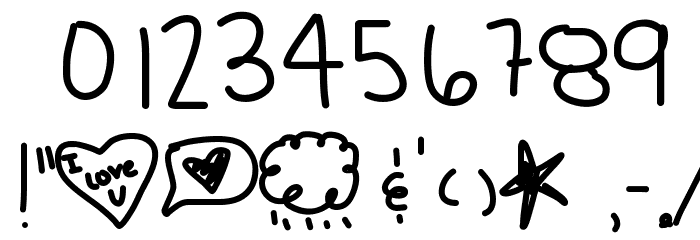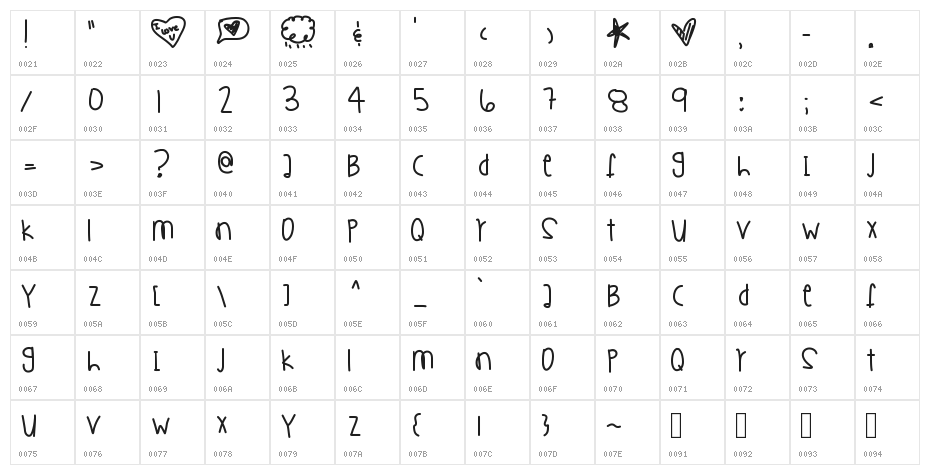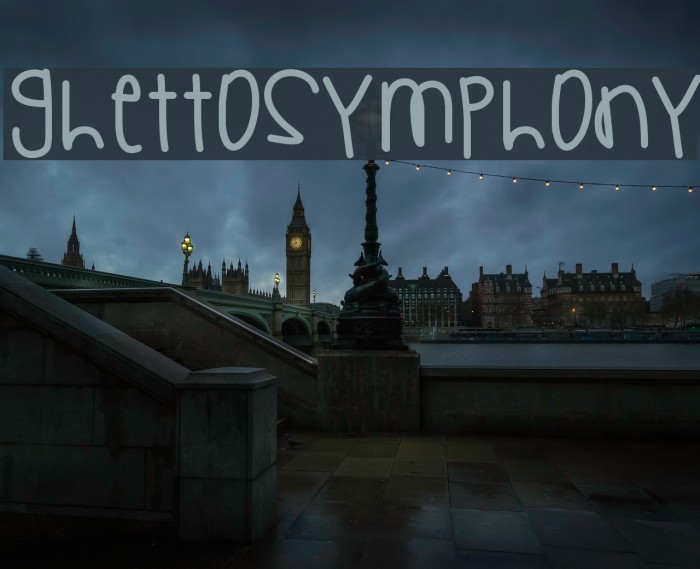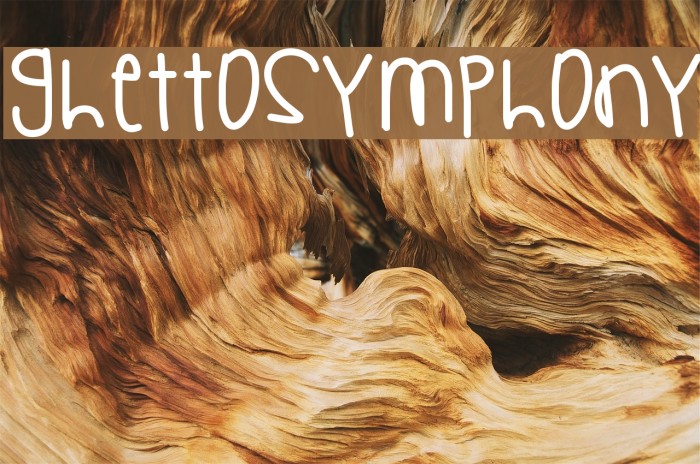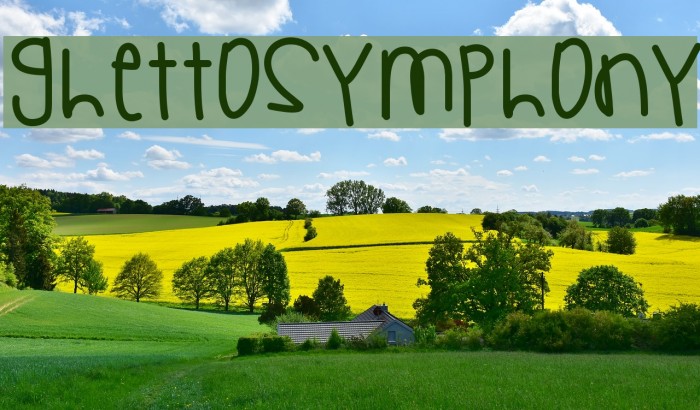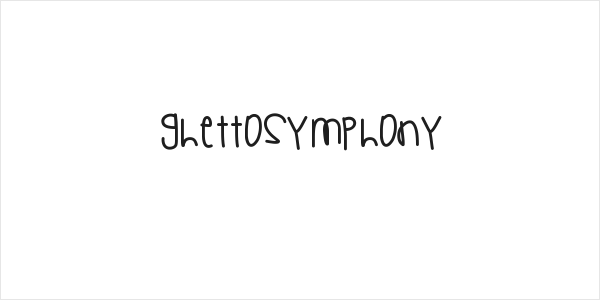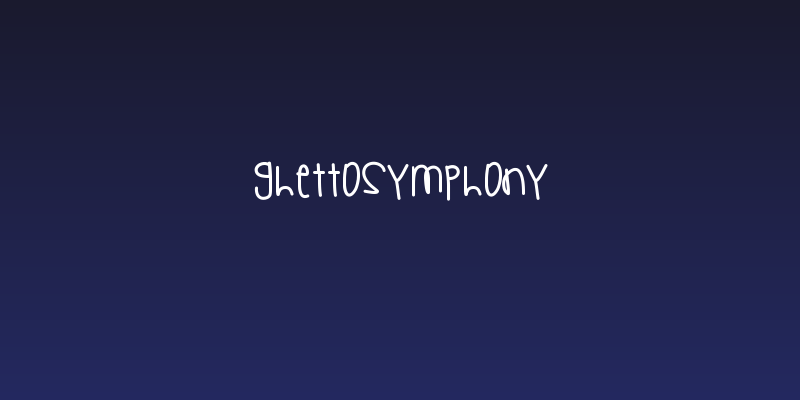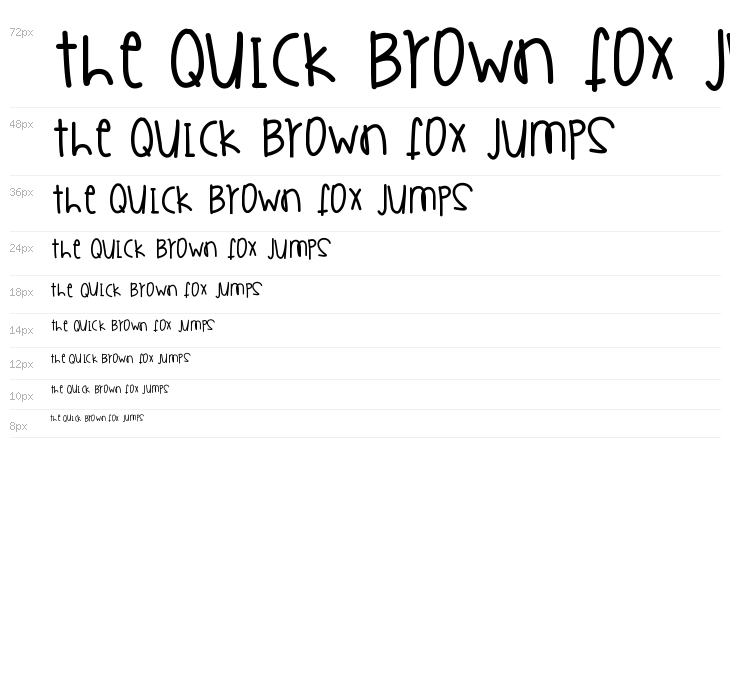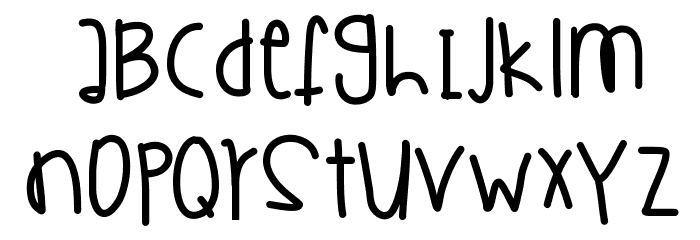
GhettoSymphony Font
GhettoSymphony Description
This playful and whimsical font features a handwritten style with a casual and informal appearance. The letters are rounded and slightly uneven, giving it a friendly and approachable feel. The uppercase and lowercase letters maintain a consistent style, with a slight slant that adds to the dynamic and lively character of the font. The numbers are clear and legible, matching the overall style of the alphabet. Special characters are creatively designed, incorporating elements like hearts and stars, which enhance the playful nature of the font. This font is perfect for projects that require a fun and engaging look, such as children's books, greeting cards, or playful branding.